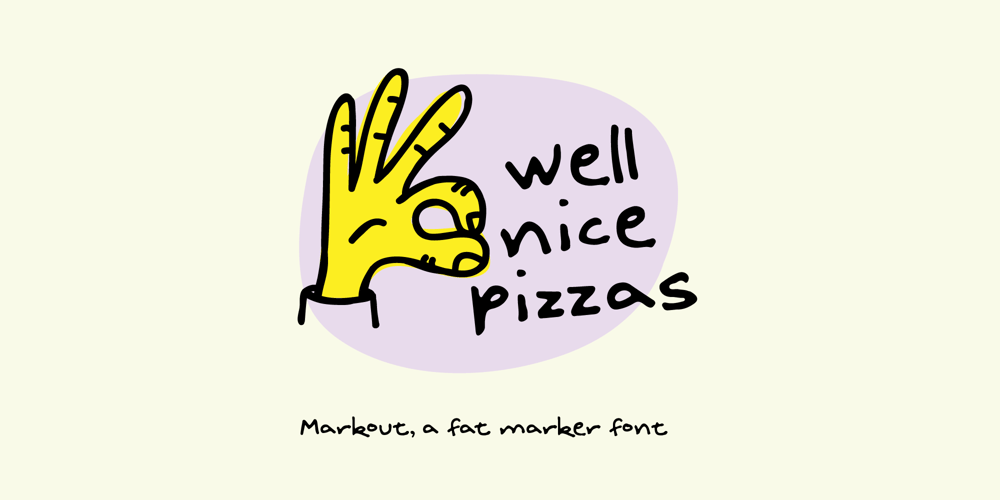
Markout Font Family was designed by Adam Greasley and published by wearecolt. Markout contains 2 styles and family package options. Markout is a chunky marker pen font. With a casual style and loose baseline, it’s a great display font for titles, headings and logos.The Markout family has regular and alt versions, where some of the characters are different. Most notable is the ‘k’ in the Alt version this has a more normal size and shape when compared to the regular.Also includes five marker pen emoji ligatures and double letter ligatures.